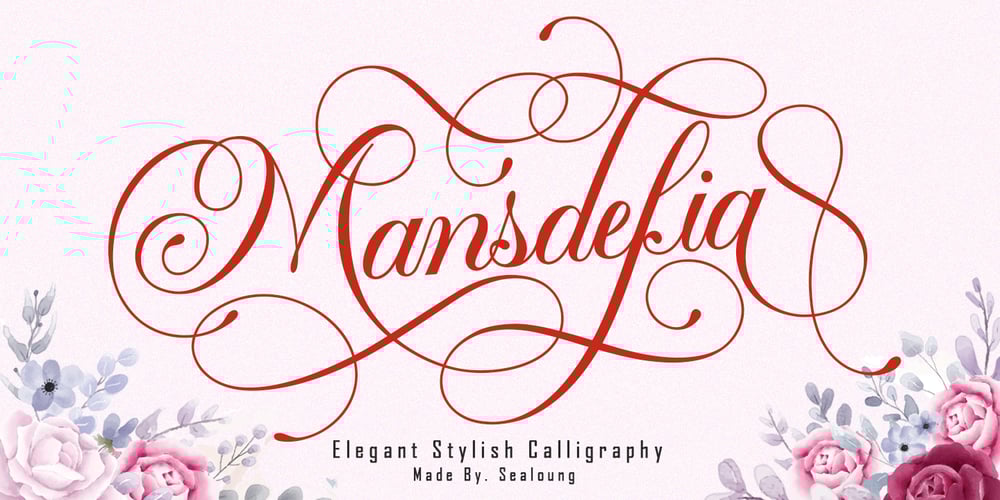
Mansdefia Font Family was designed by Saiful Anwar and published by Sealoung. Mansdefia contains 1 styles and family package options. Mansdefia is calligraphy font with a classic style and a touch of elegance, inspired by the handwriting of Italian women and ancient manuscripts. Carefully designed to work together in harmony that makes it very suitable for wedding media, book covers, greeting cards, logos, branding, business cards and certificates, even for any design work that requires a classic, formal or luxurious.Try Desirable Calligraphy, enjoy the richness of OpenType features and let her fun and elegant excitement make you happy and enhance your creativity! You can use this font very easily.